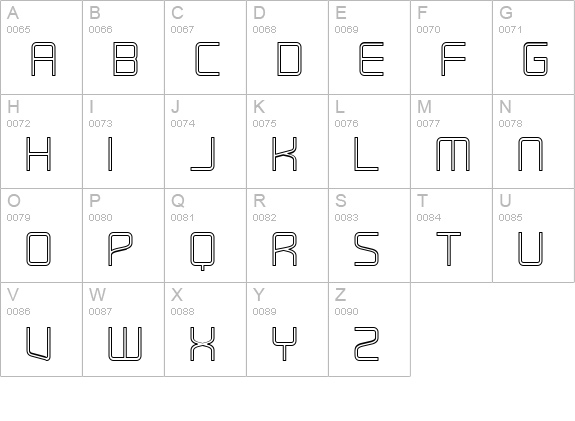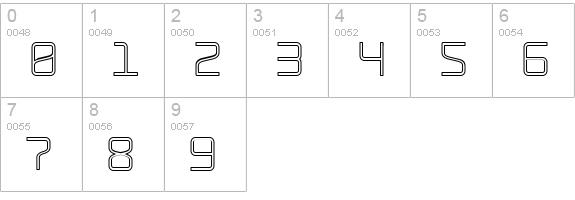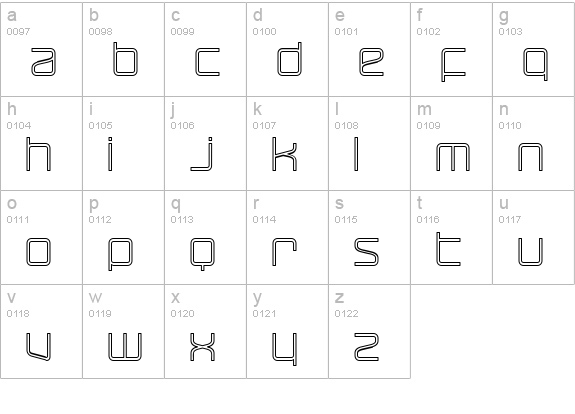
RaveParty Hollow font is a vibrant and energetic typeface that perfectly captures the spirit of a lively rave party. With its bold and edgy design, this font exudes a sense of excitement and fun, making it the ideal choice for projects that aim to stand out and make a statement. The hollow style adds a modern twist to the overall look, giving it a unique and dynamic appearance. Best of all, RaveParty Hollow font is available for free download at FontsMarket.com, making it easily accessible for designers and creatives looking to add a touch of electrifying energy to their work. Whether you're working on a poster, flyer, or social media graphic, this font is sure to make a lasting impression and bring your designs to life. Embrace the party vibes and let RaveParty Hollow font take your projects to the next level!